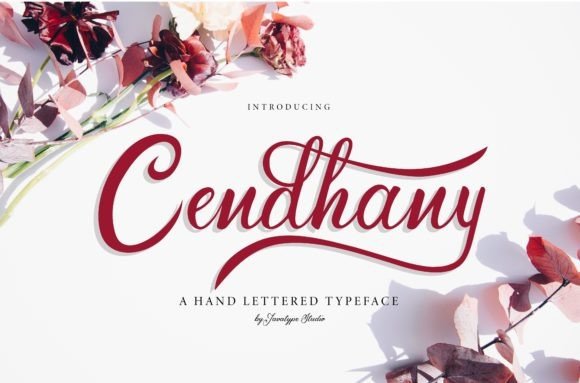
Cendhany Calligraphy Font
Cendhany Calligraphy Font is one of the elegant calligraphy fonts that comes with a very beautiful change of character, a kind of classic copper decorative script with a modern twist. This font is made by handwriting naturally using a brush pen so it can produce good quality fonts.
They work perfectly for you who need a typeface for headline, logotype, apparel, invitation, branding, packaging, wedding, advertising, etc. This typeface comes in uppercase, lowercase, punctuation, symbols, numerals, alternate, ligatures, etc also support multilingual.